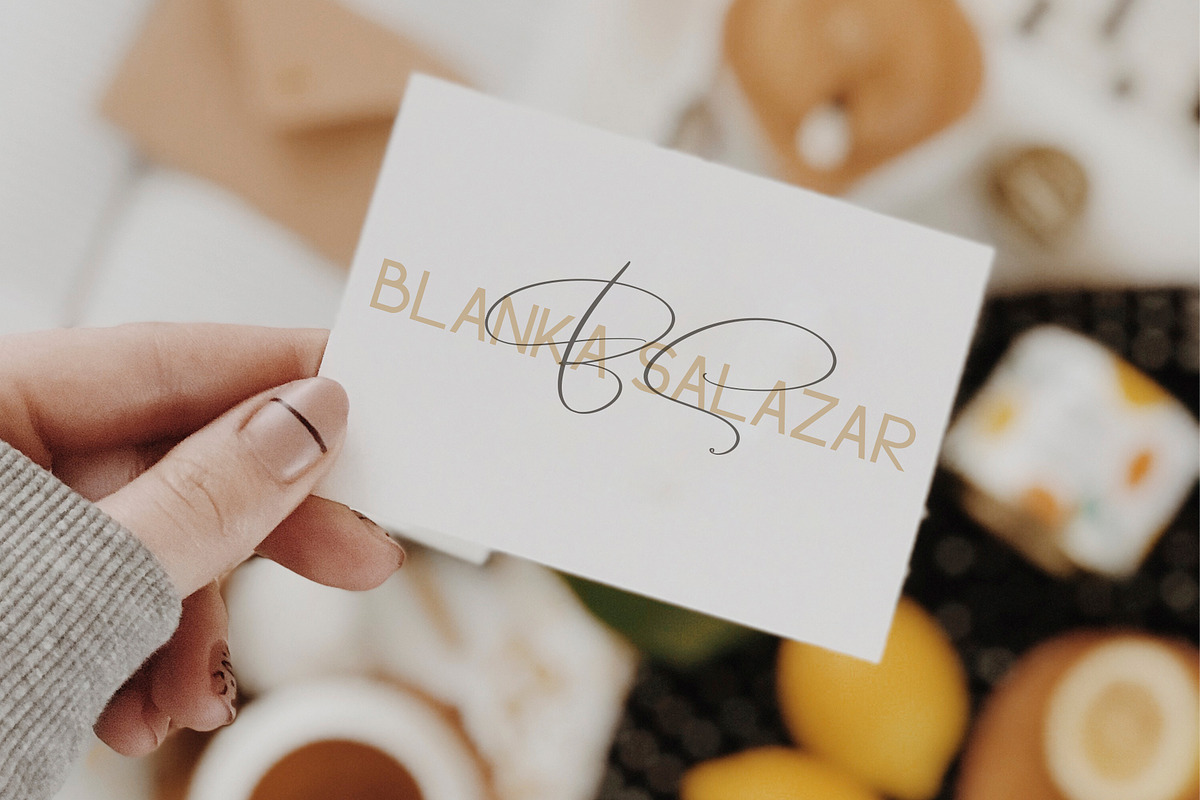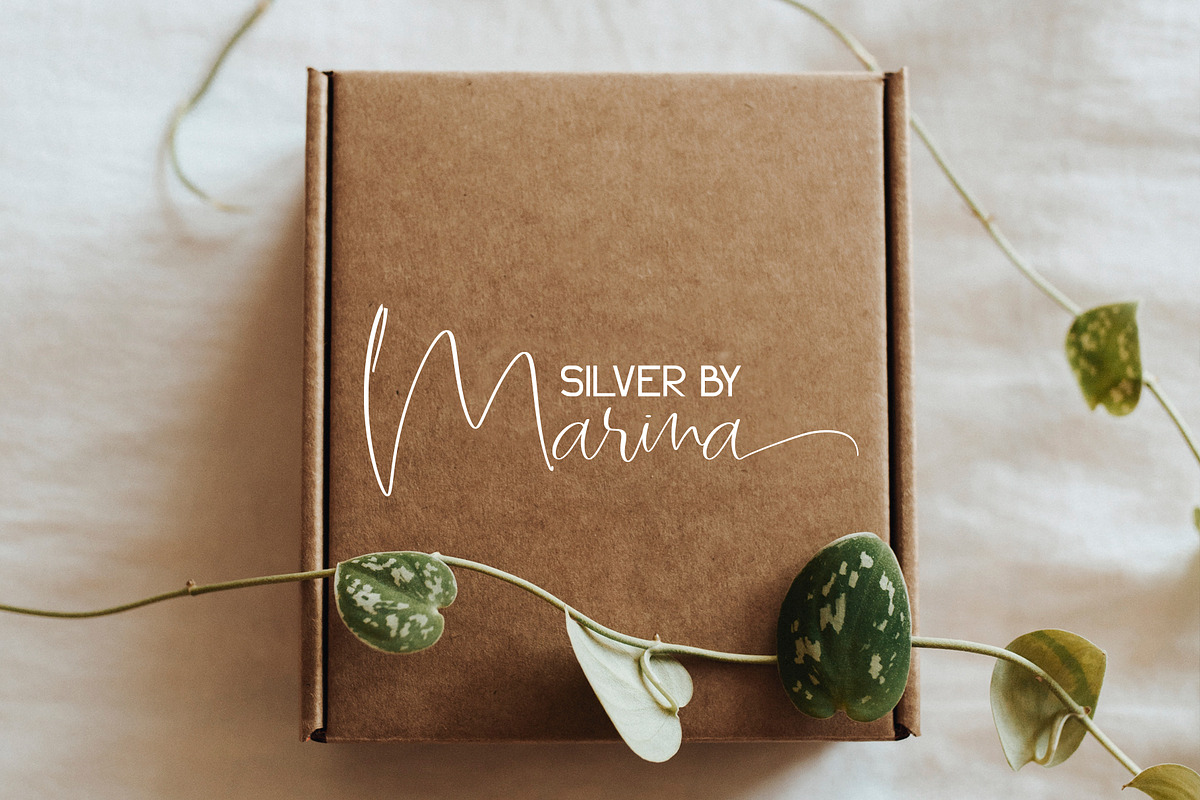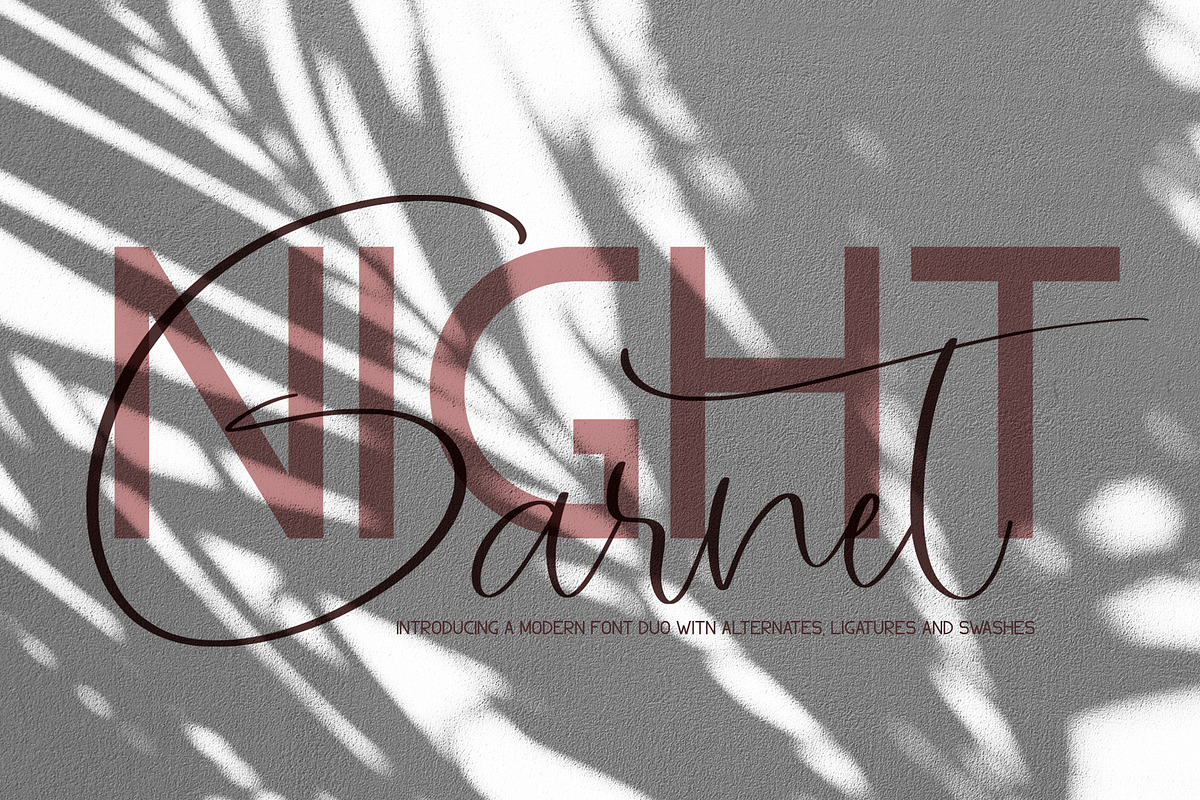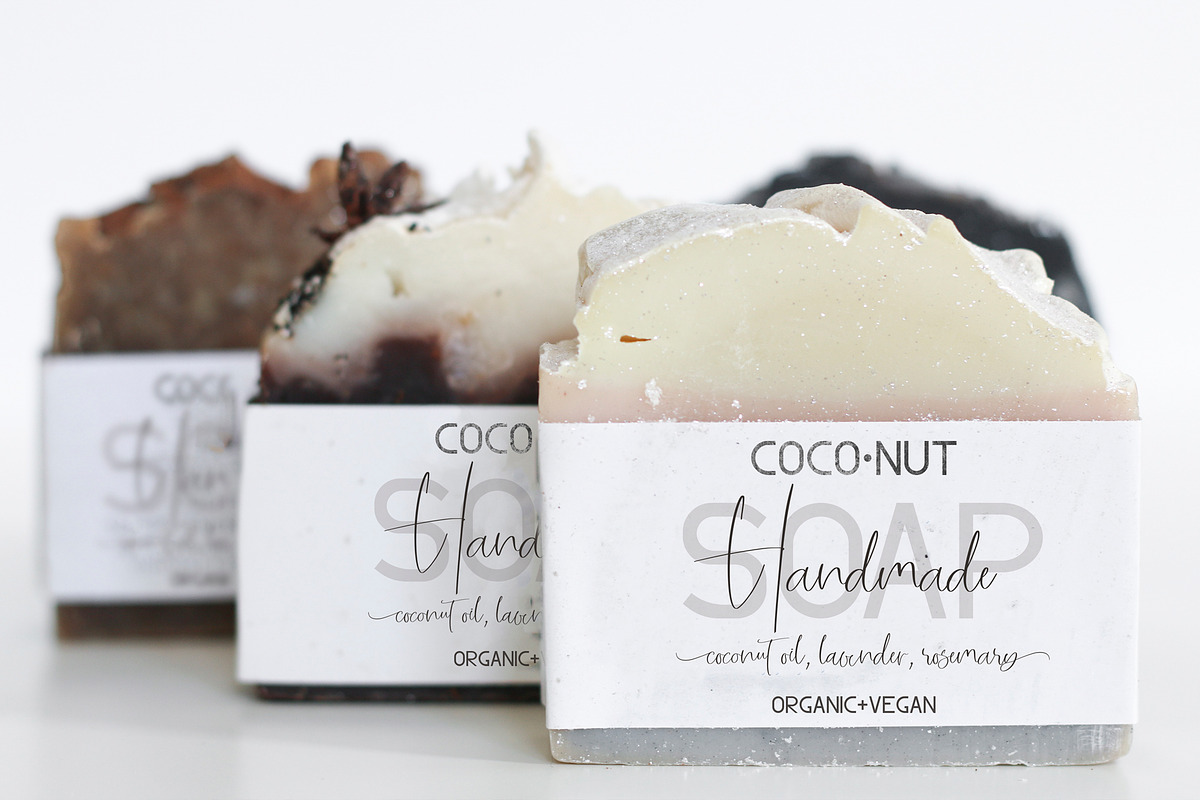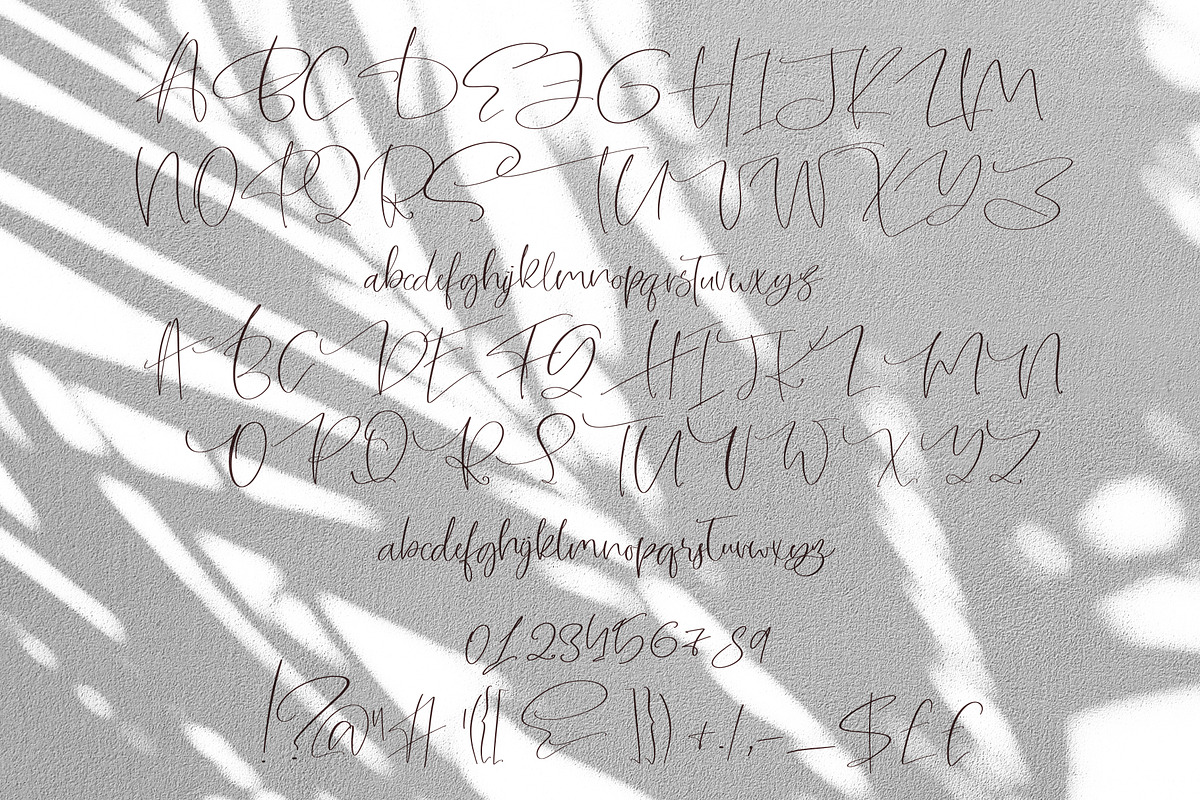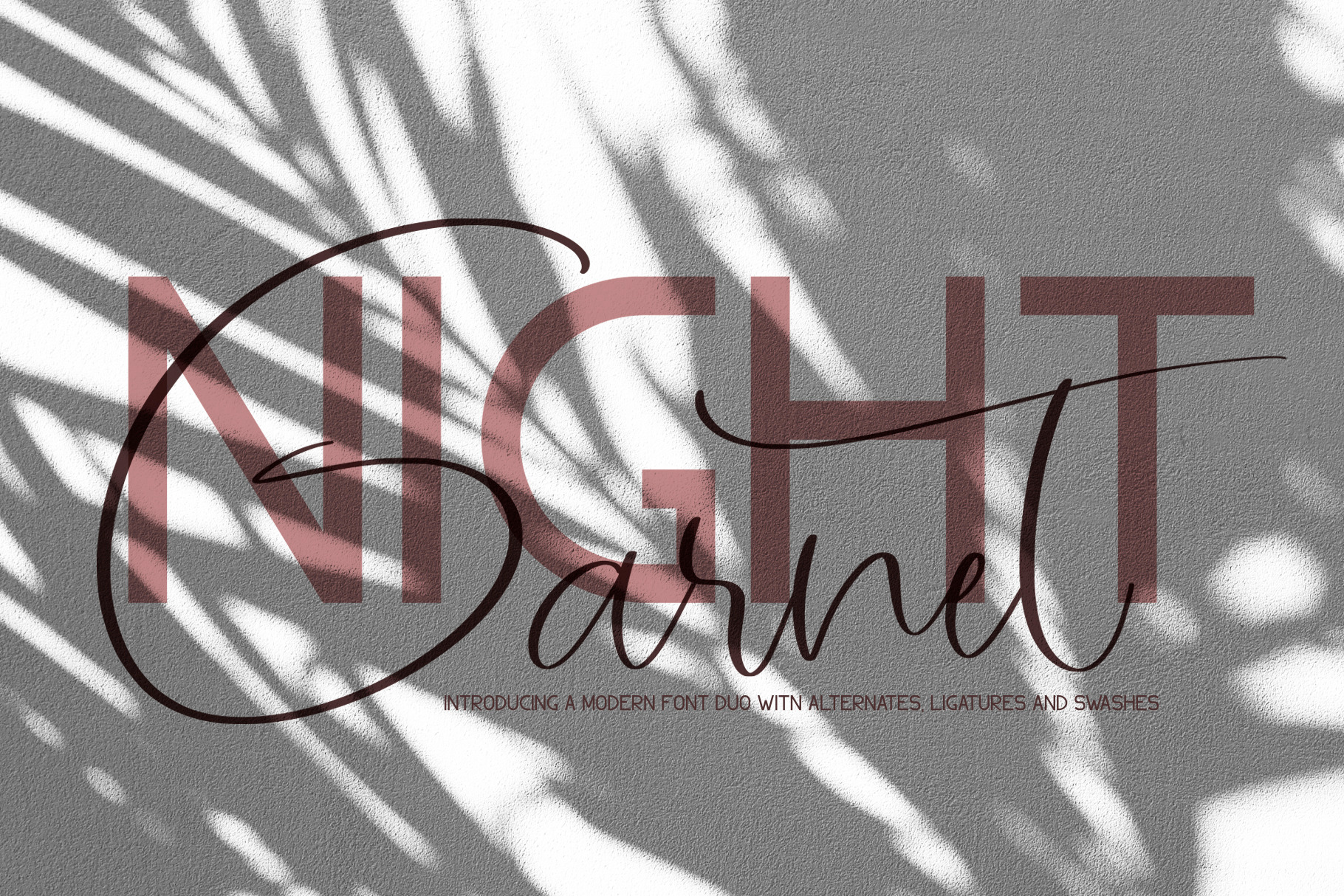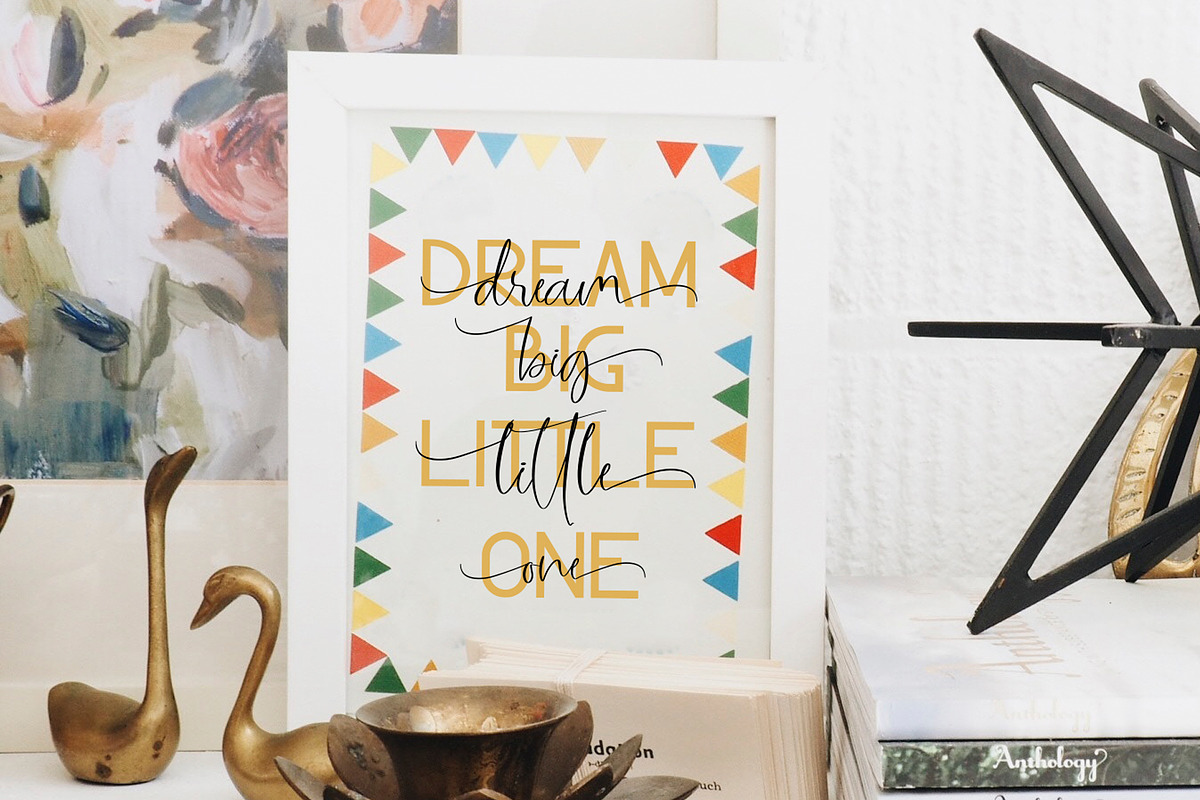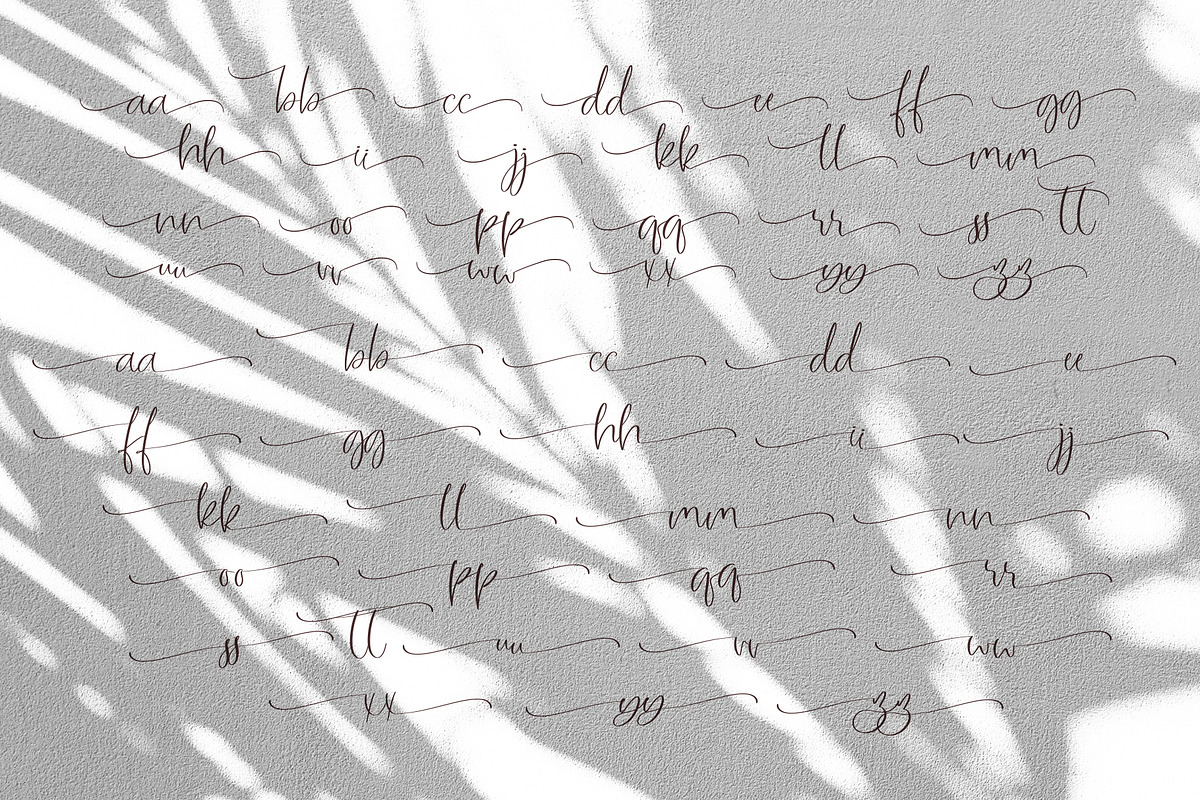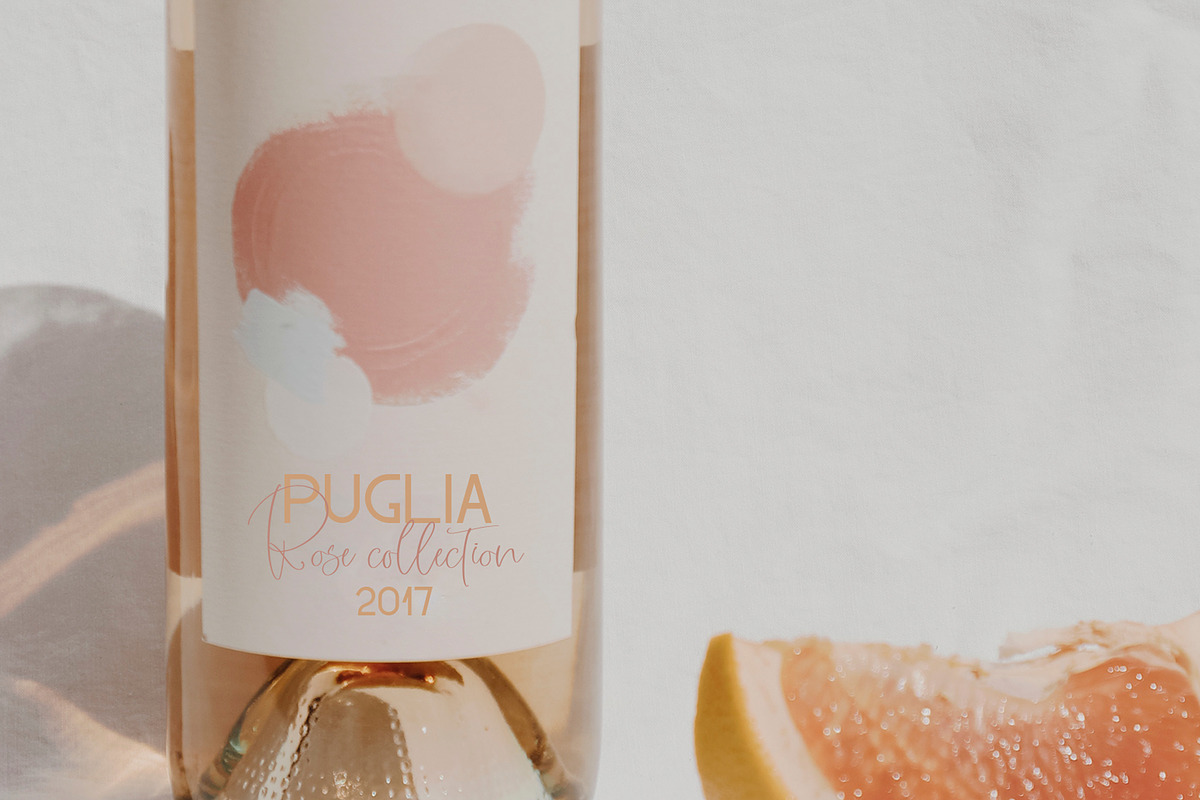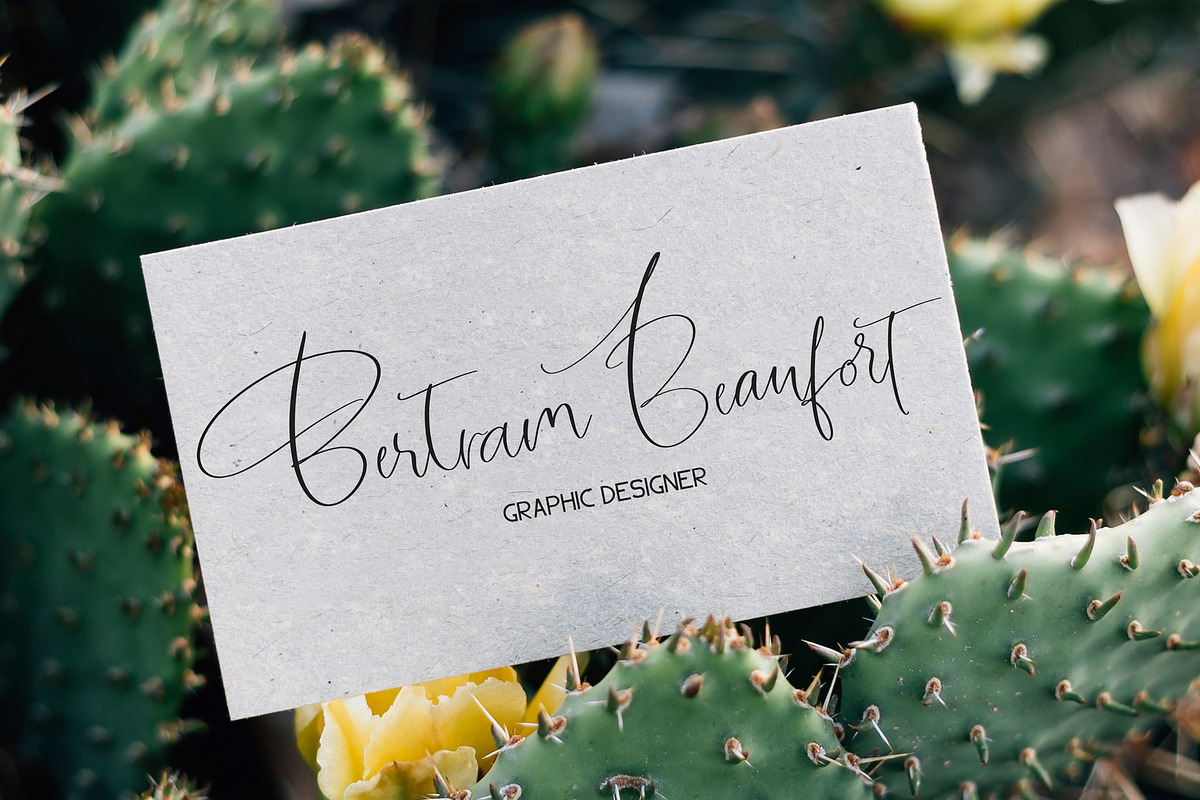
Garnet Night Font Duo
Garnet Night Font Duo - it's a font duo includes Sans Serif font and a modern signature script font
Garnet Night script font includes automatic ligatures, alternates for uppercase and lowercase, alternaternates with short and long swashes for lowercase